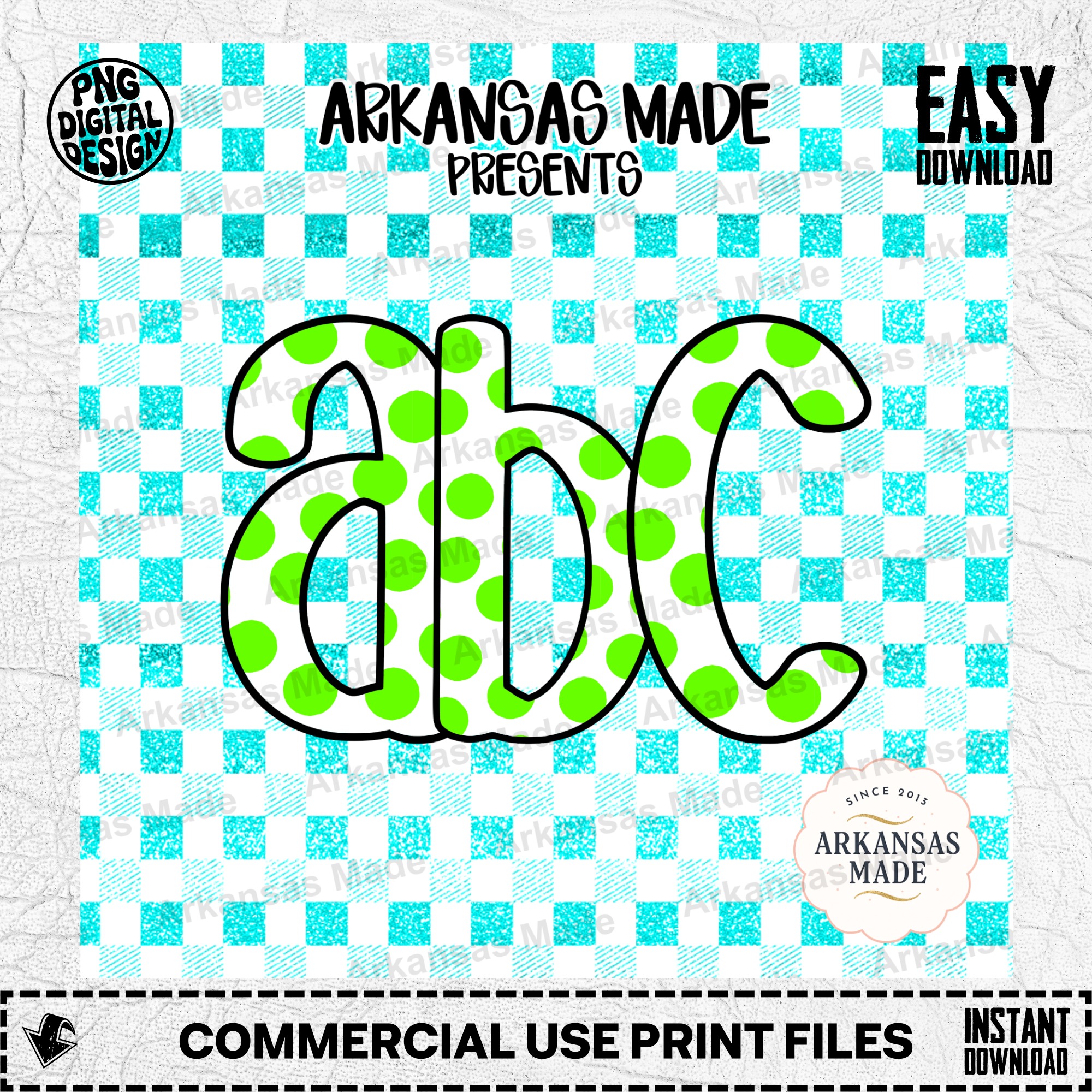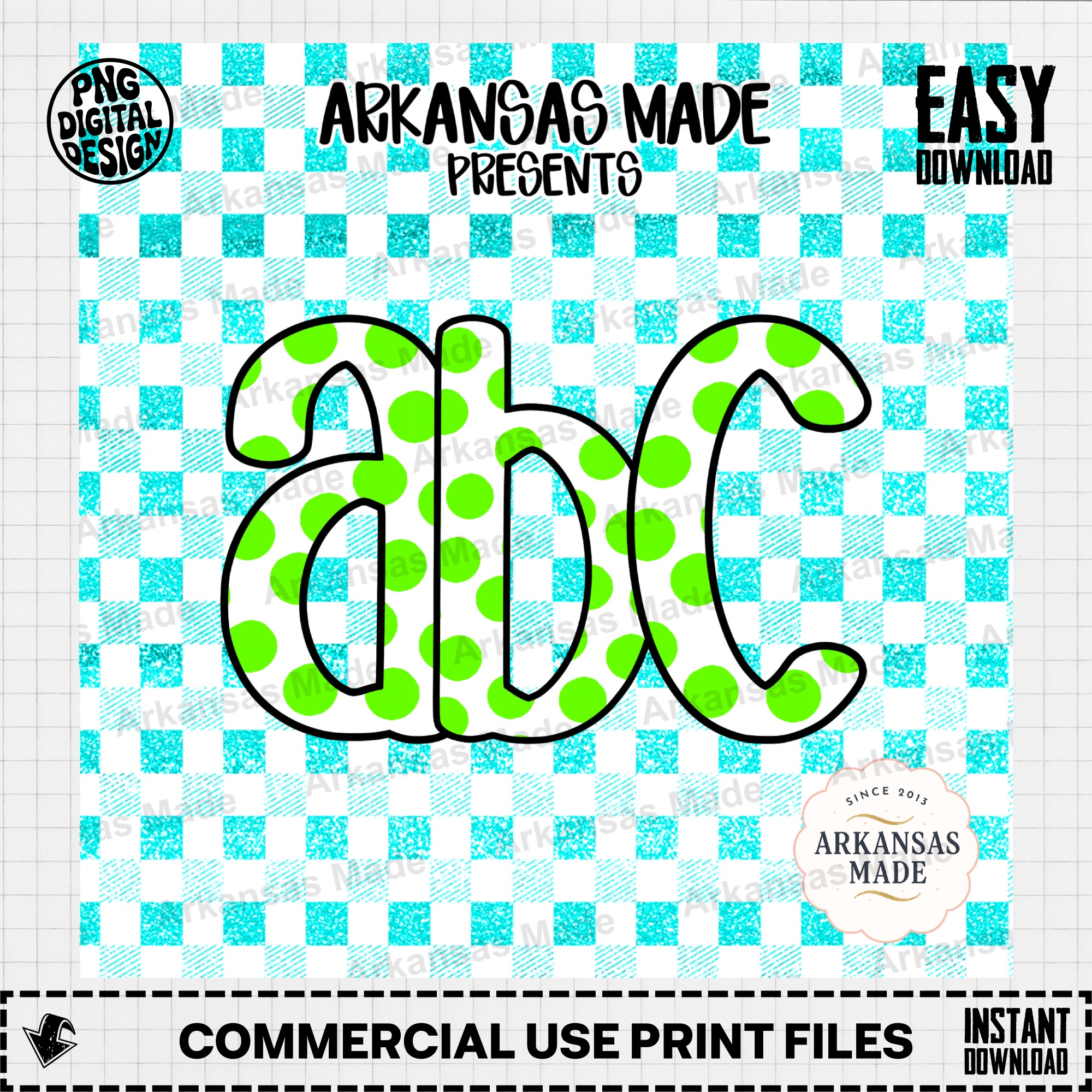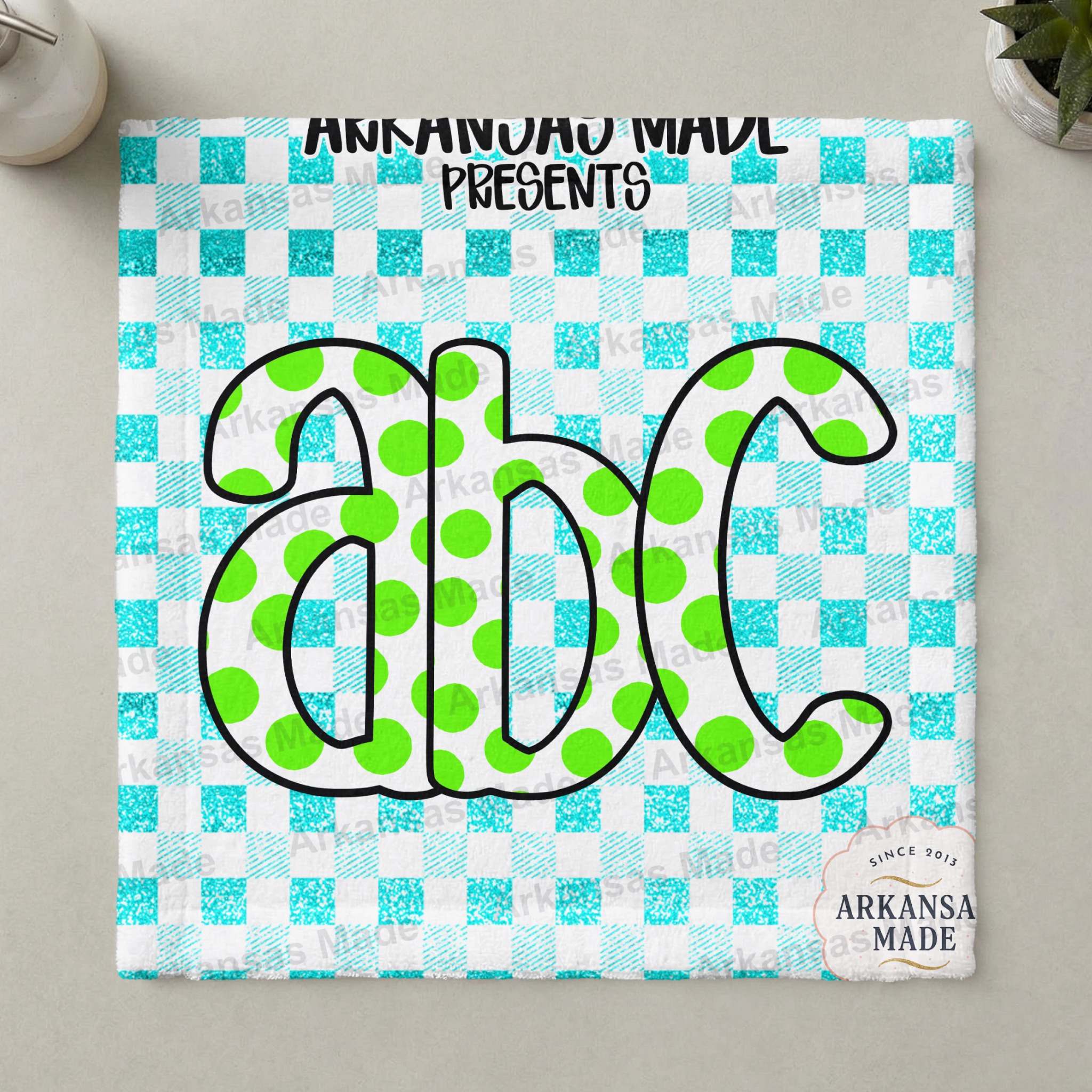
Playful Polka Dot ABC Digital Download Alpha Set – Vibrant Lime Green Polkadots & Faux Teal Glitter Gingham Font
Dive into creativity with this Playful Polka Dot ABC Digital Download Alpha Set, featuring vibrant lime green polkadots and a faux teal glitter gingham background. Perfect for crafters, teachers, and small business owners, this cheerful alphabet design brings a fun, retro pop vibe to any project. Use it for personalized birthday crafts, nursery decor, classroom resources, or unique sublimation designs. An instant download to spark your imagination!